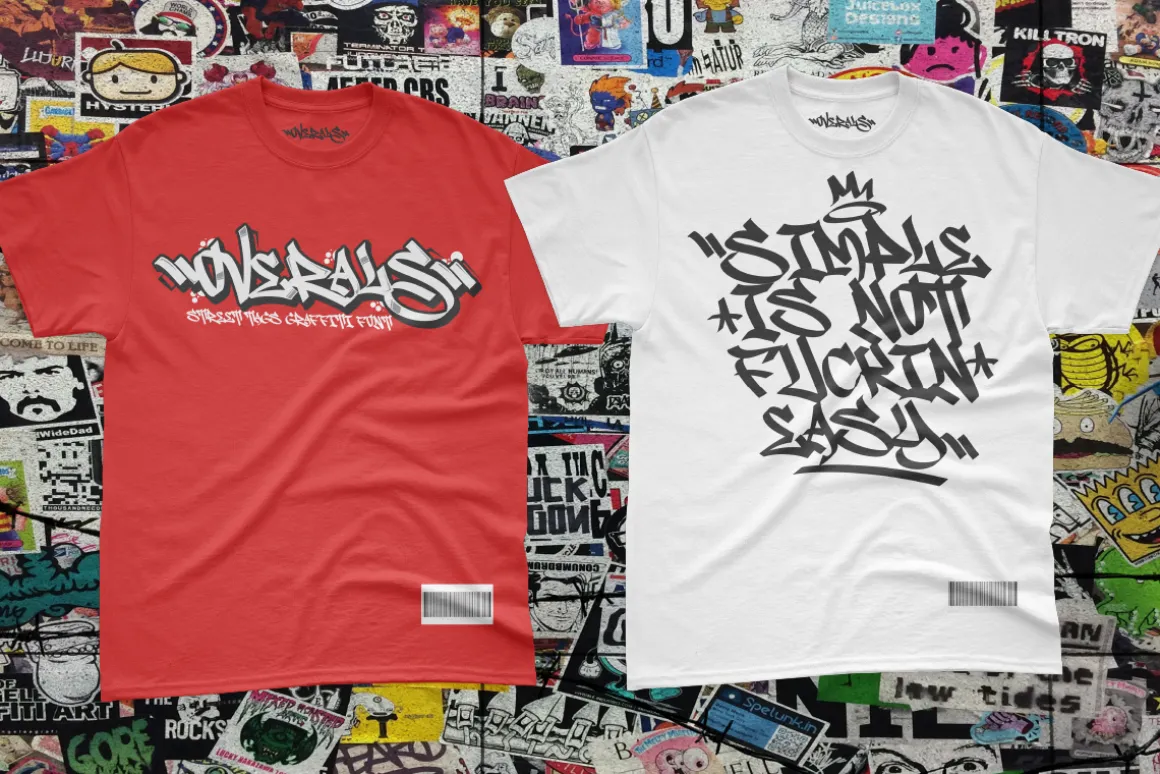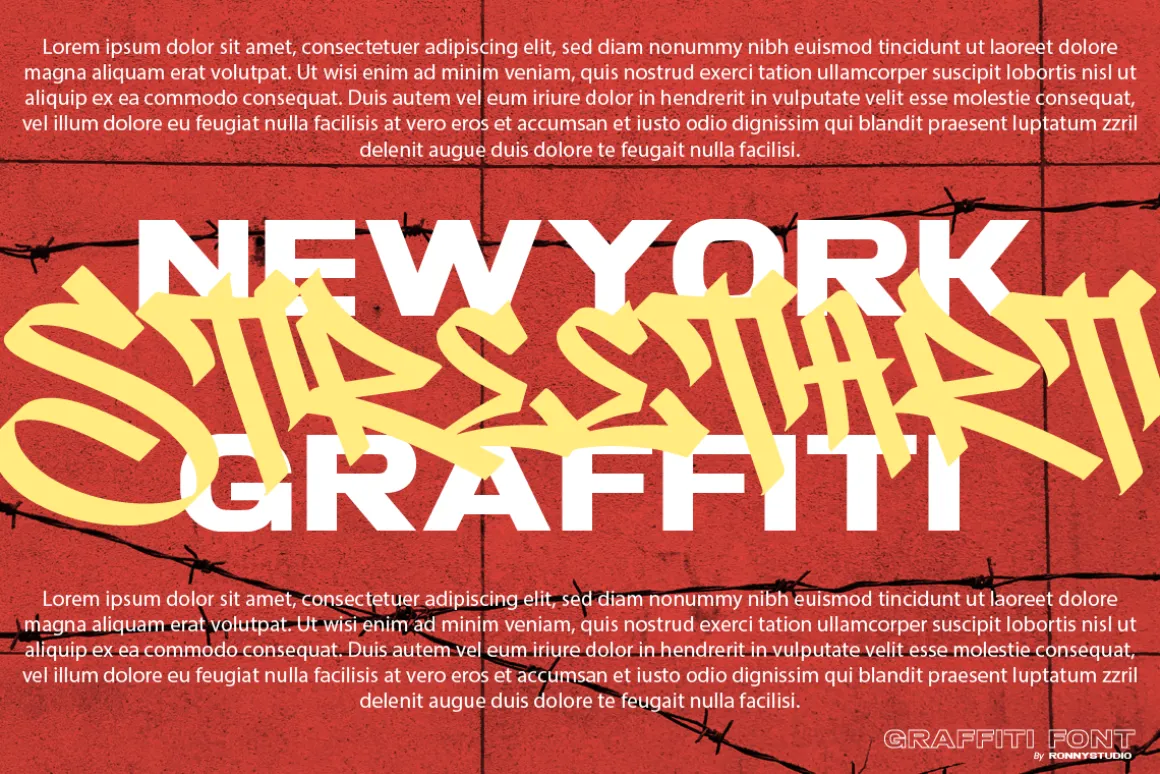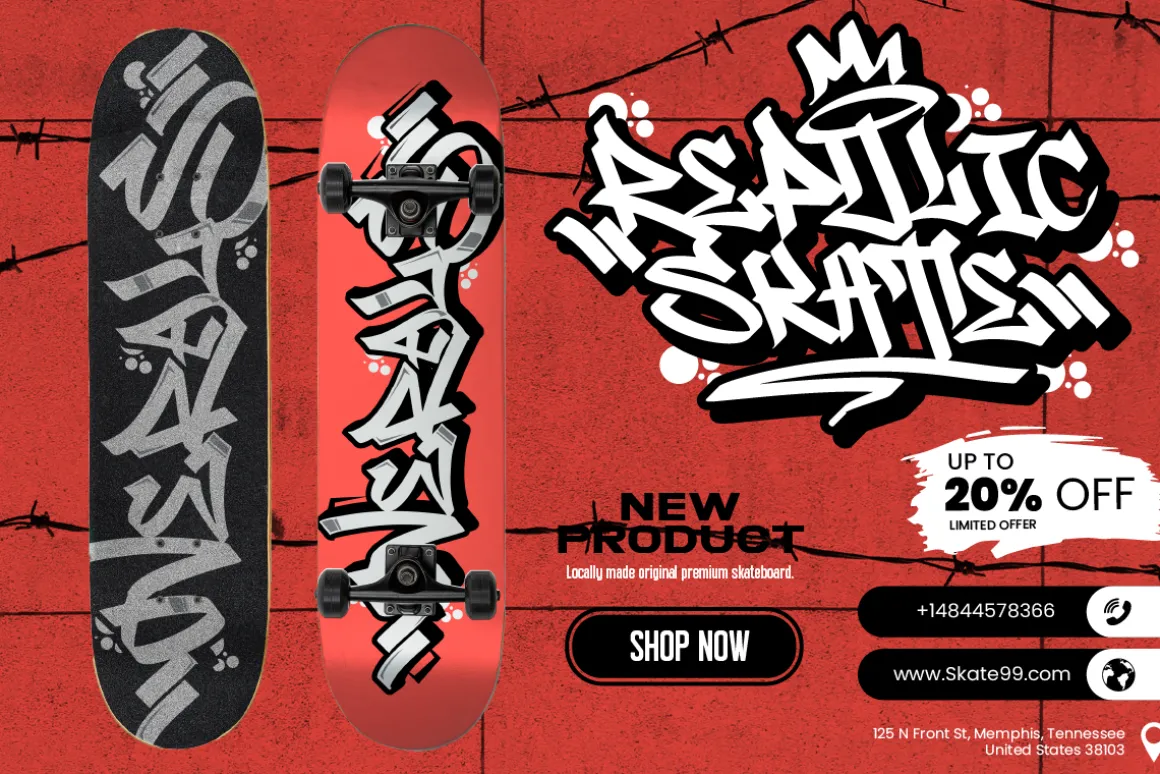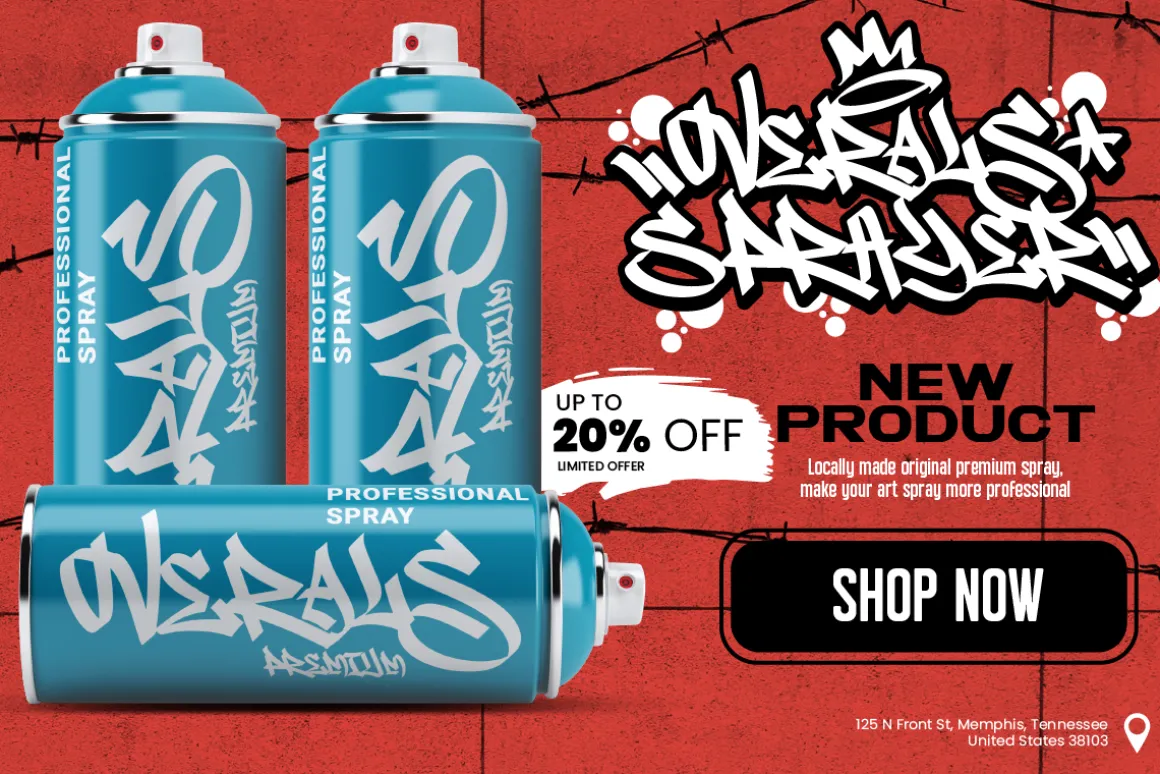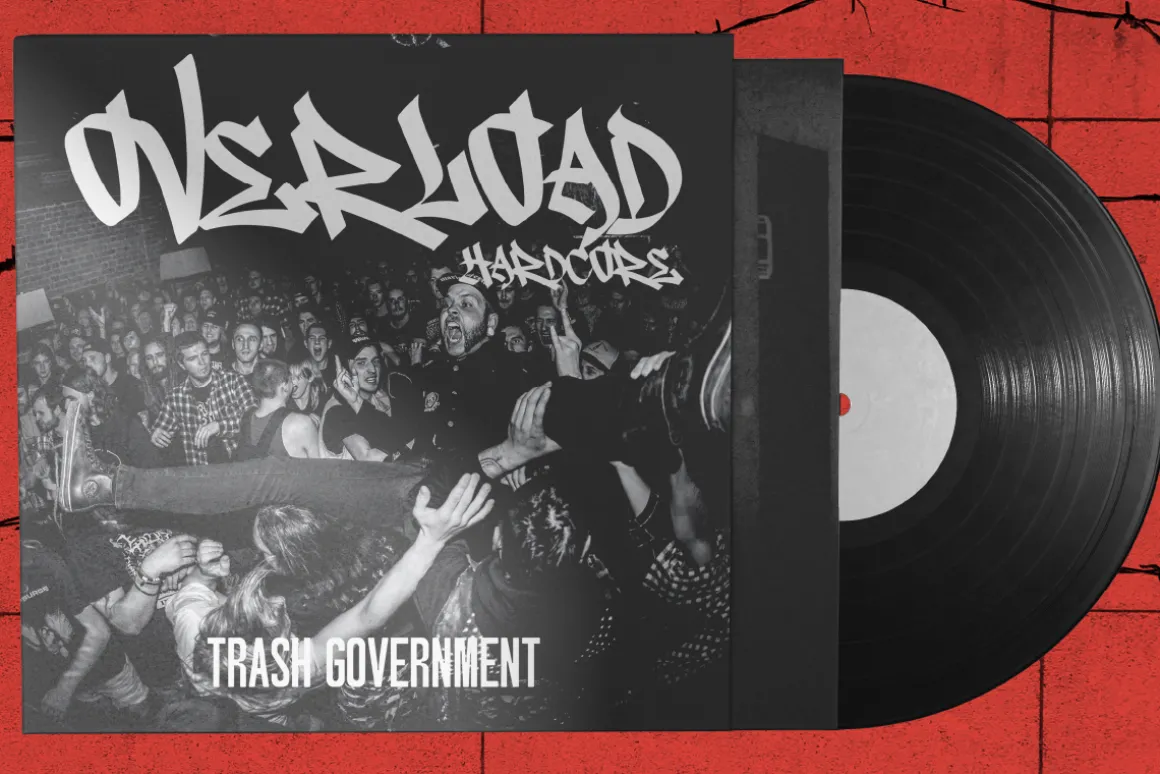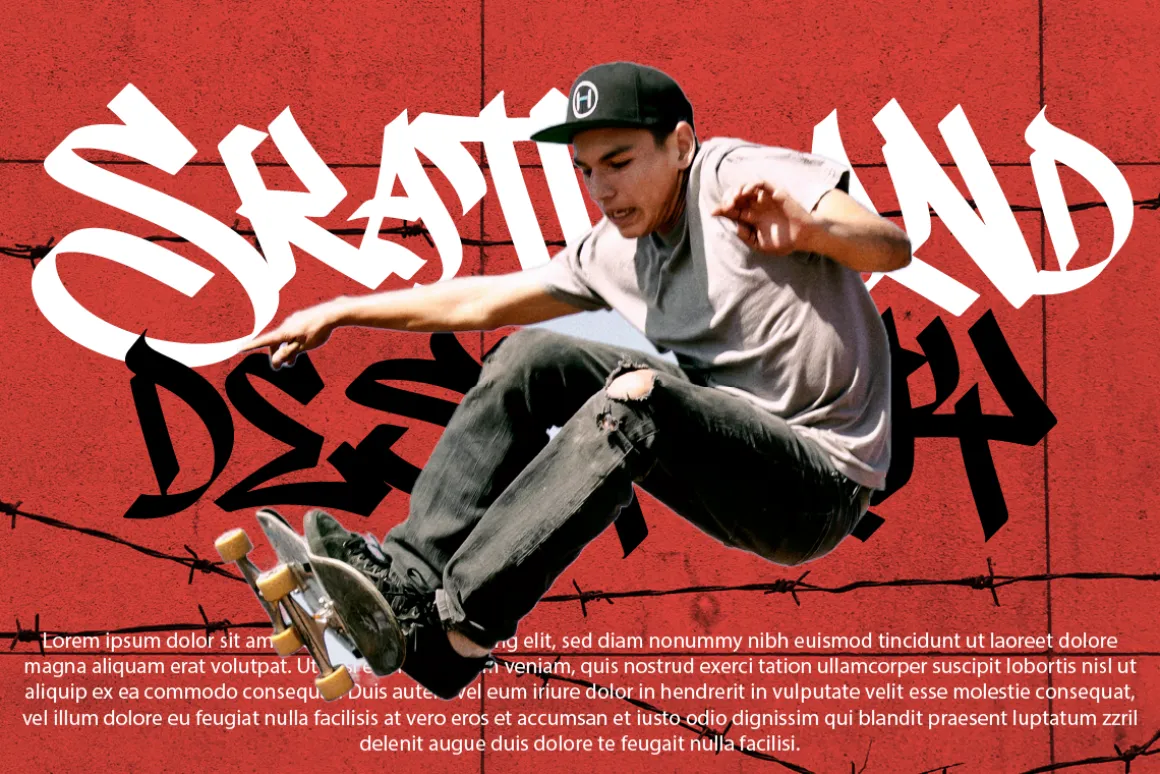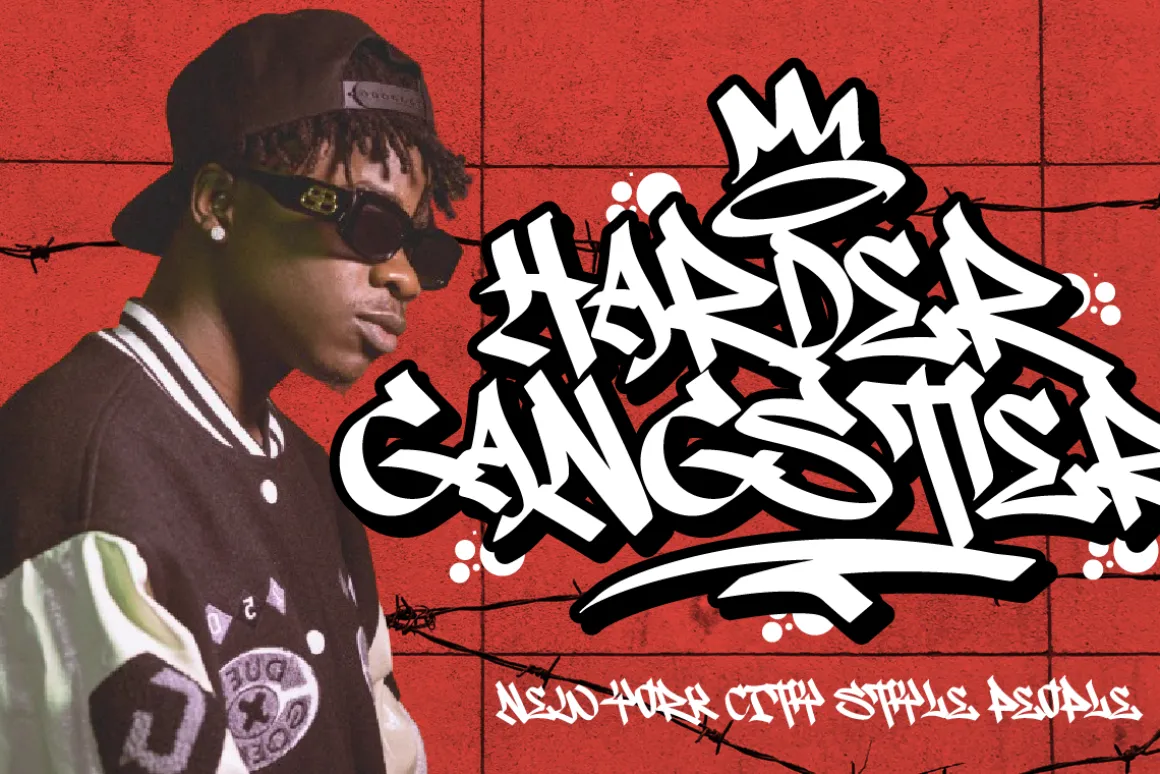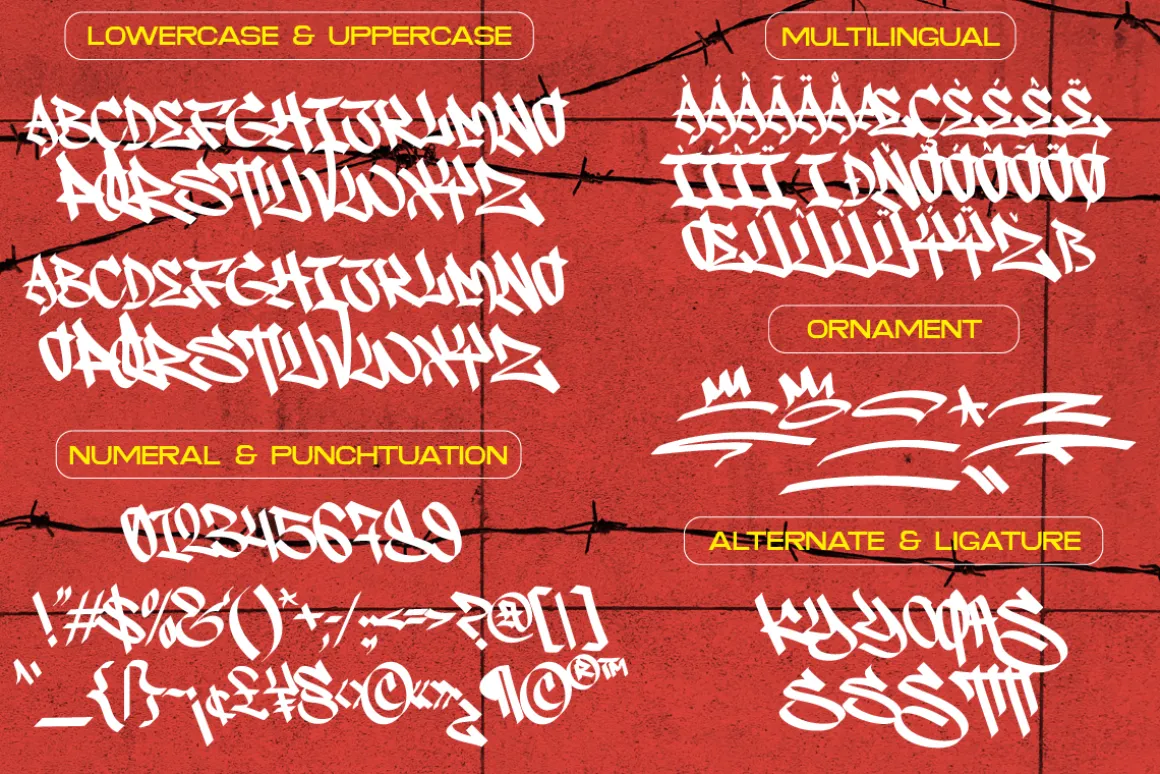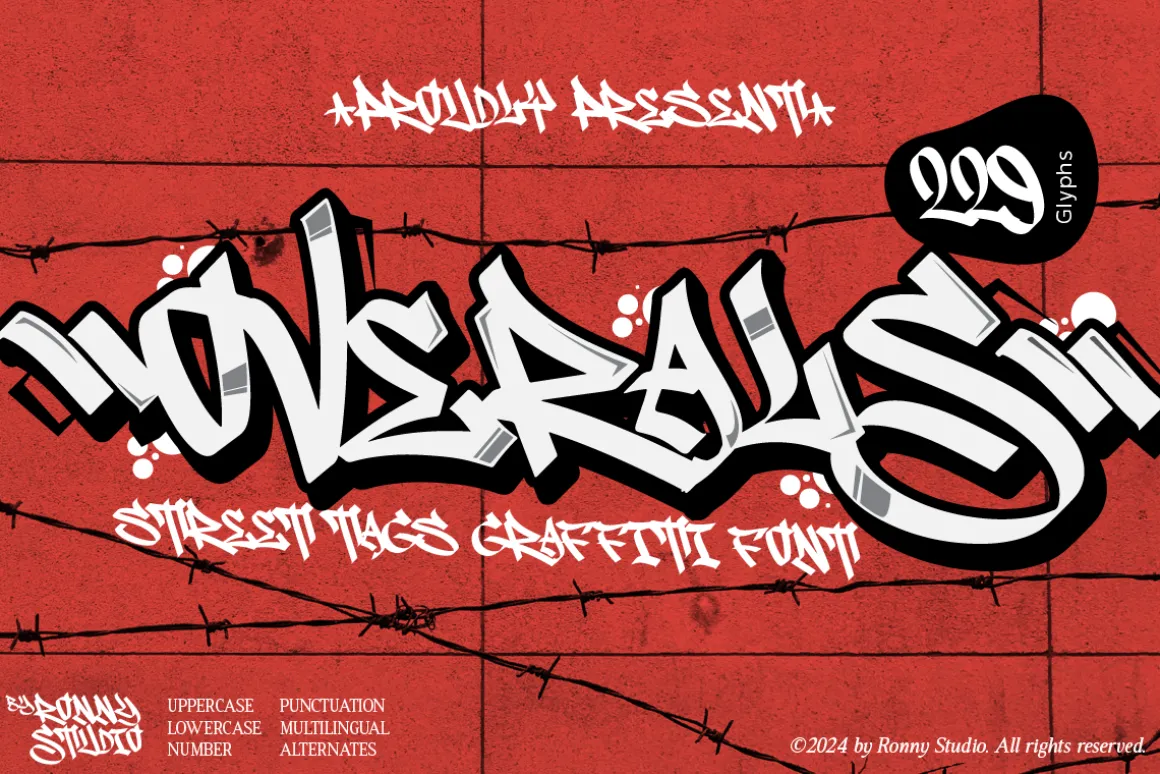
Overals – The Ultimate Street Graffiti Font for Bold & Urban Designs 🎨🔥
Unleash the raw energy of street art with Overals, a wild graffiti font designed for urban branding, hip-hop culture, and streetwear aesthetics. Featuring dynamic strokes, sharp edges, and a rebellious attitude, this font is perfect for those who want to capture the essence of authentic graffiti and street tag culture.
🎨 Key Features:
✅ Wildstyle Graffiti Lettering – Inspired by real street tags and murals.
✅ Urban & Hip-Hop Aesthetic – Perfect for streetwear, rap albums, and underground branding.
✅ Versatile Usage – Ideal for posters, logos, stickers, album covers, and digital art.
✅ Supports Multiple Languages – Includes complete characters, alternates, and ligatures.
🚀 Bring the Streets to Life with Overals – The Ultimate Graffiti Font!